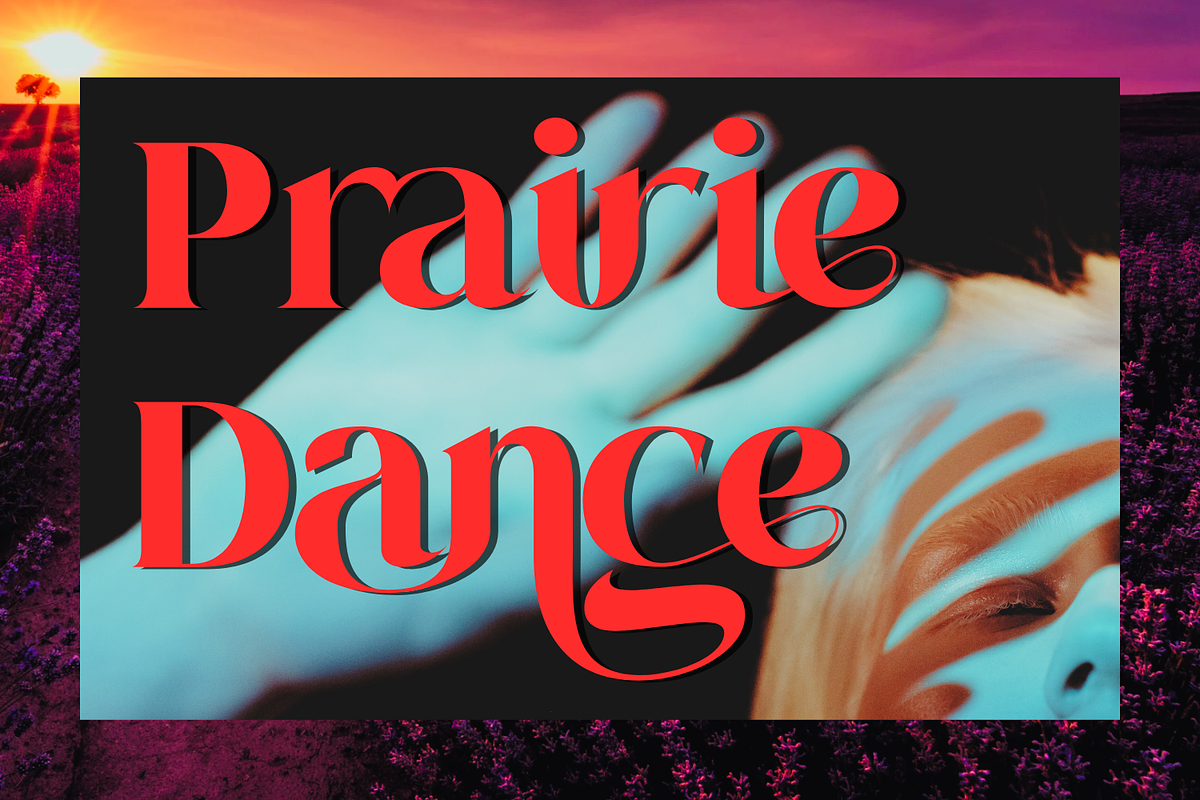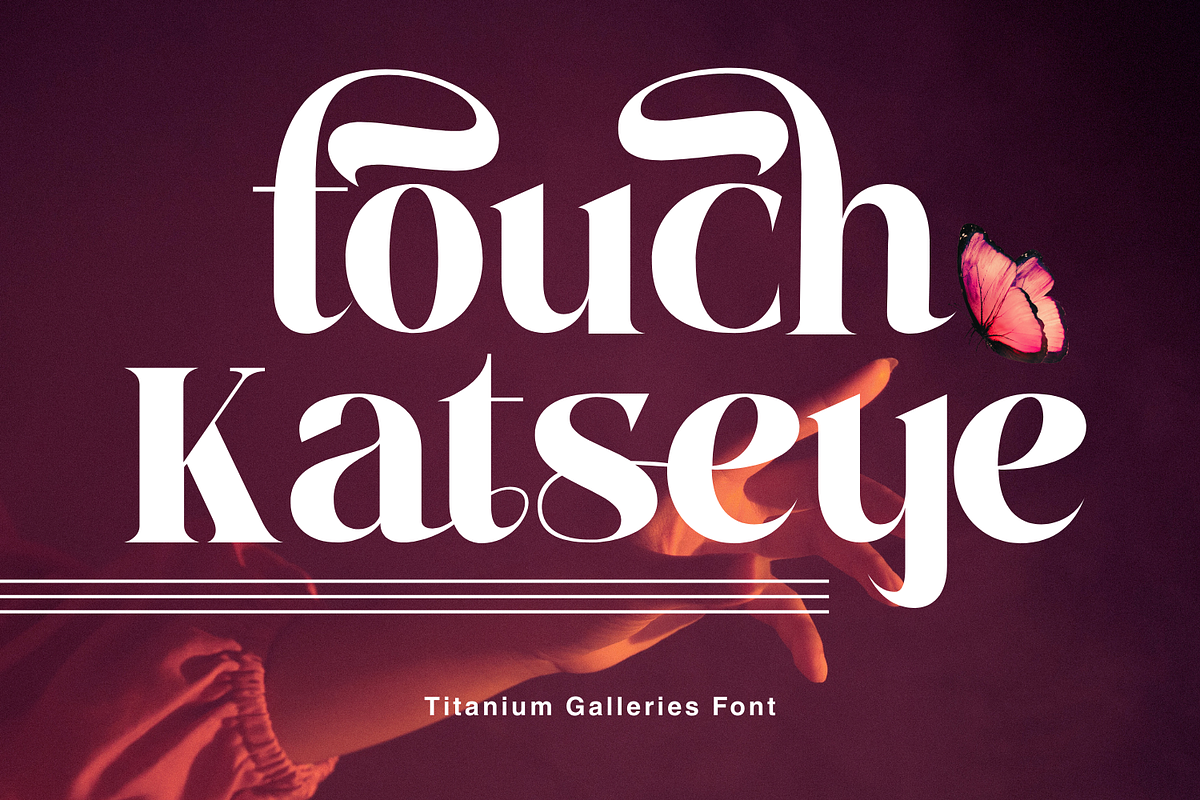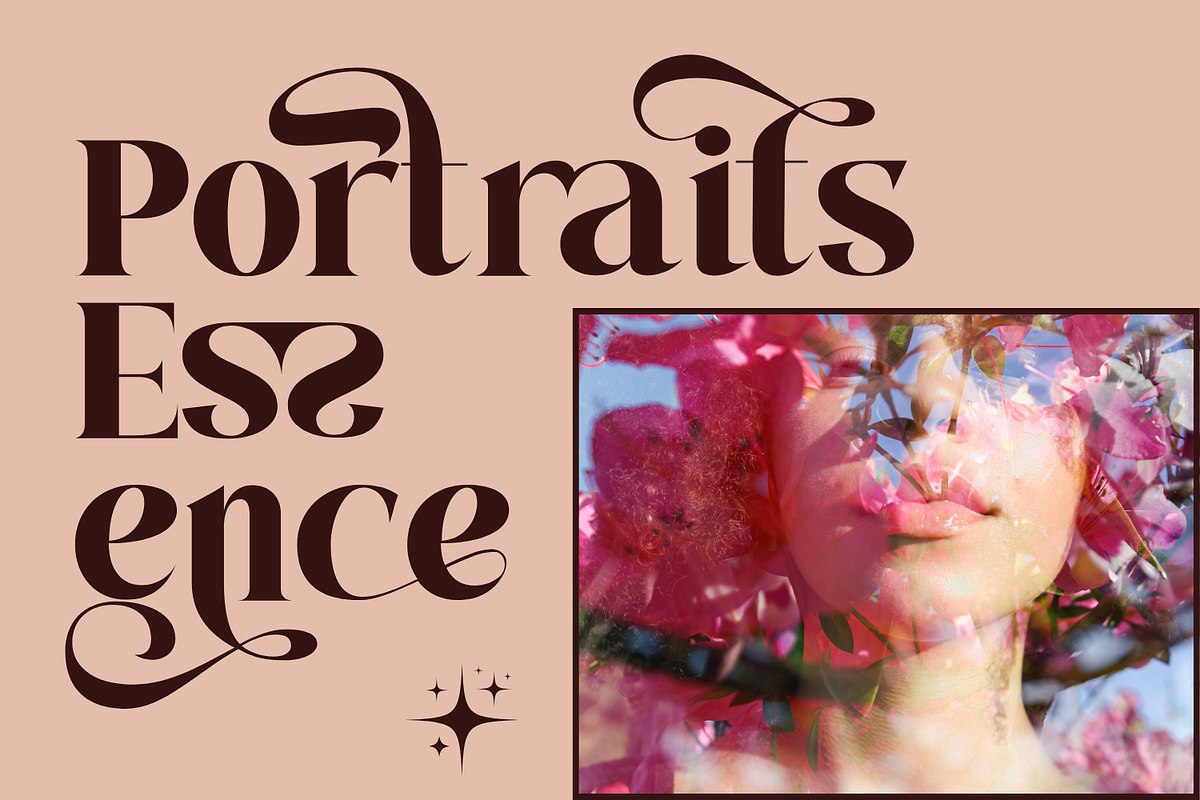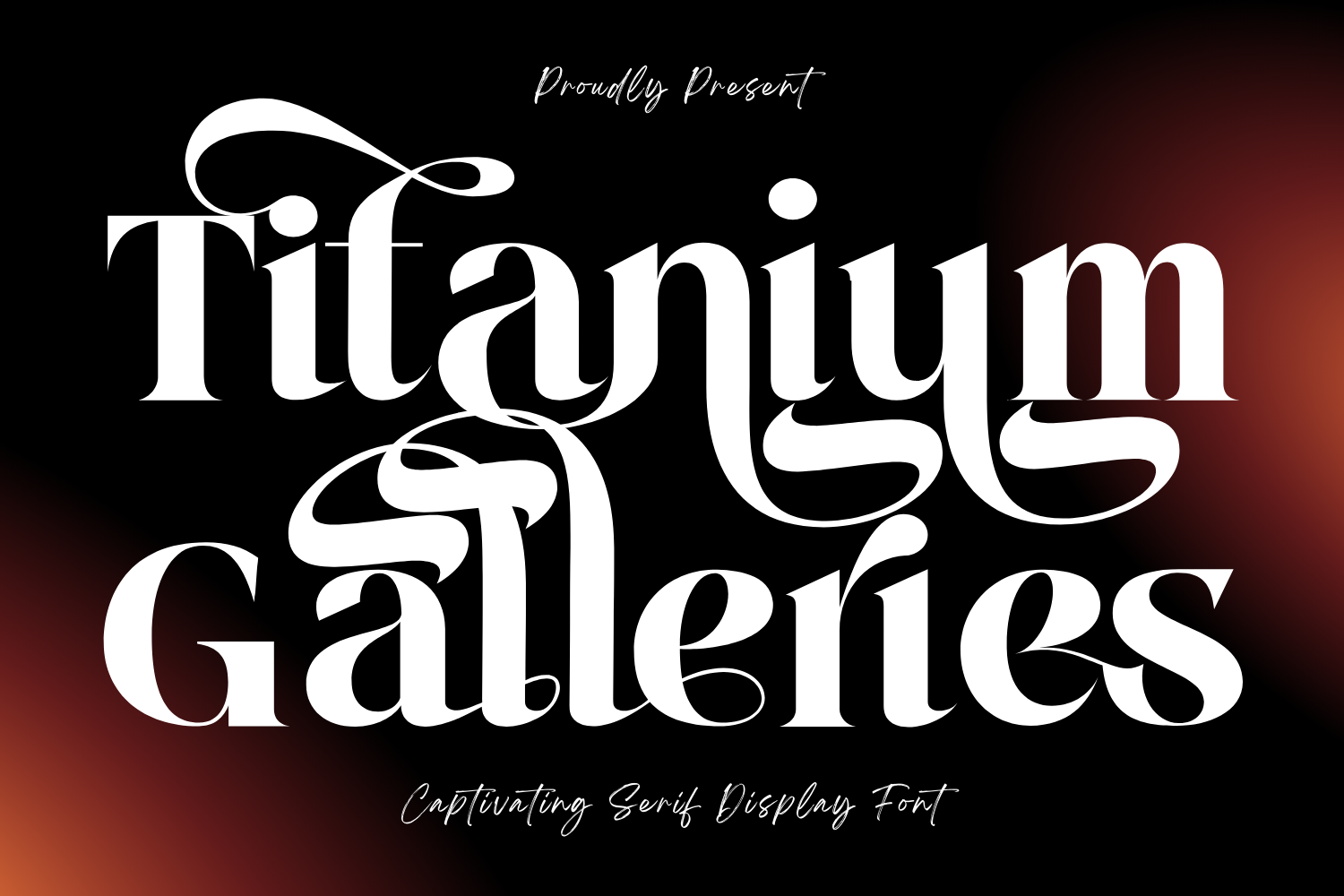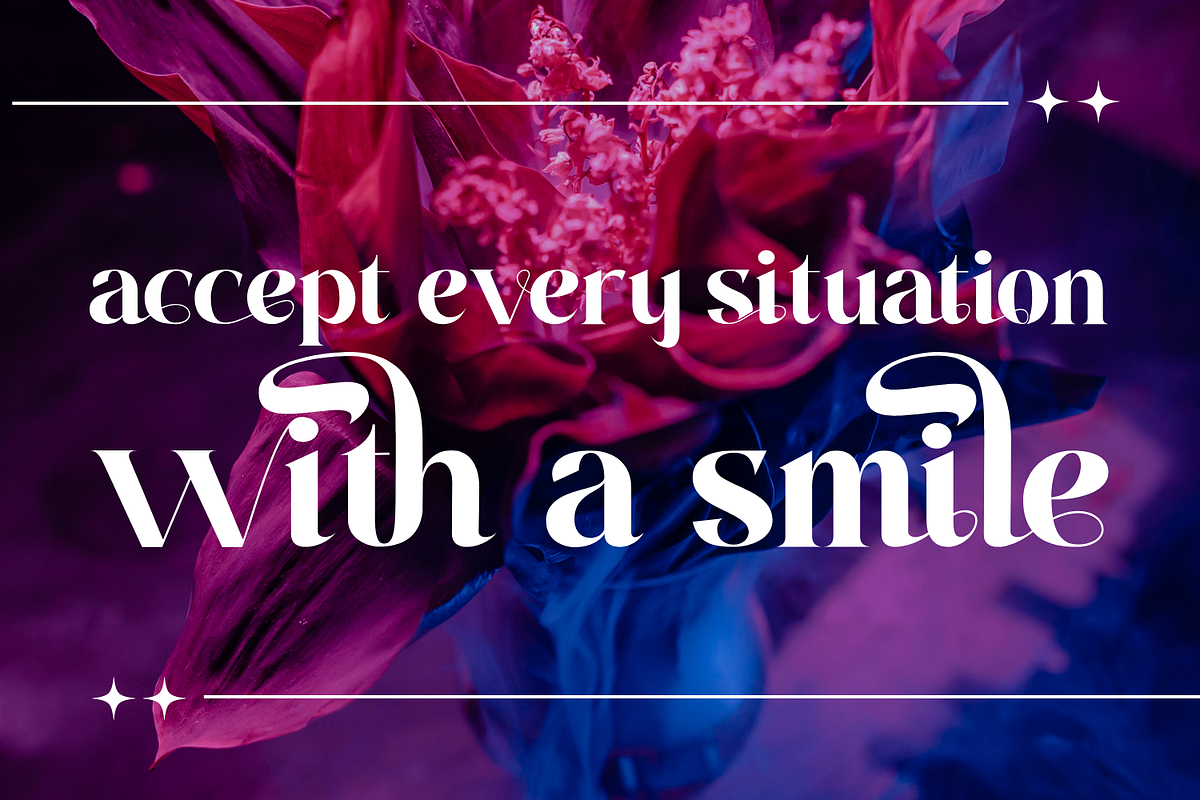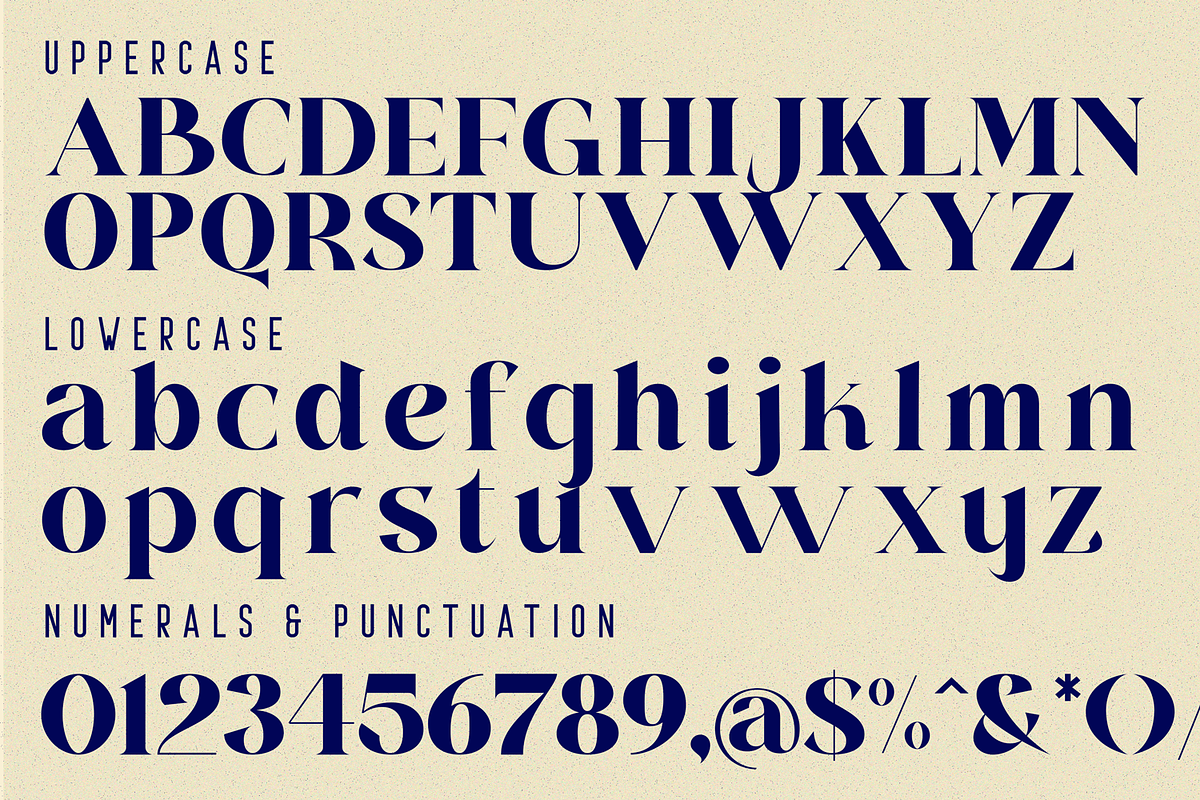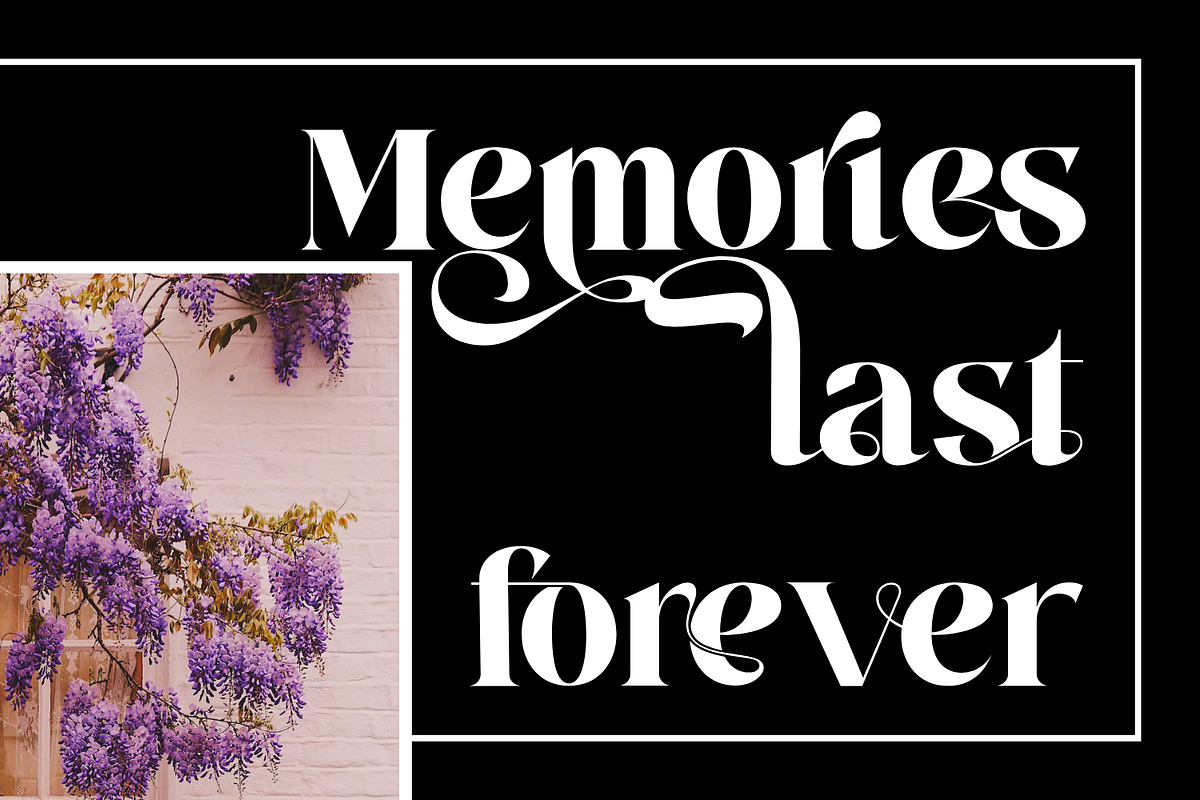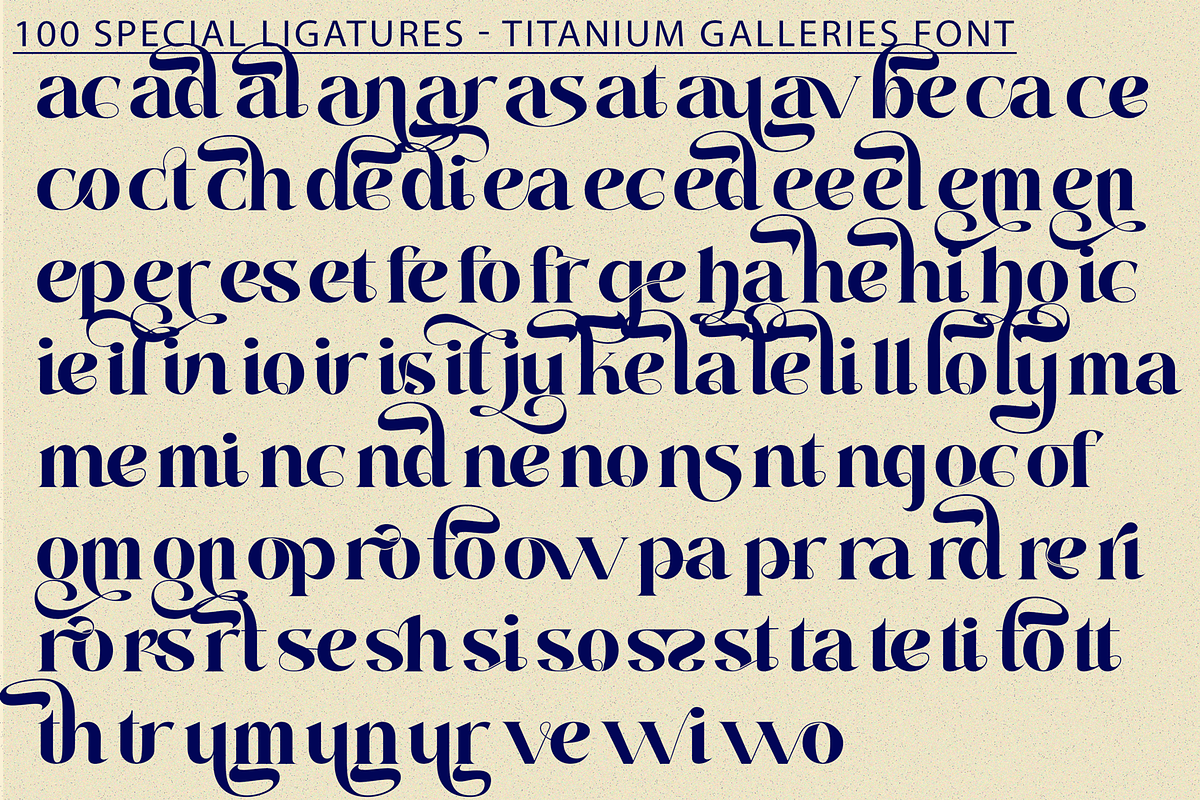
Titanium Galleries Luxury Serif Font
Titanium Galleries Luxury Serif Font – Luxury Modern Serif with Dramatic Swashes, is a luxury serif typeface that blends refined elegance with bold artistic flair. Featuring high-contrast strokes, extended swashes, and graceful curves, this font is designed to command attention in premium branding, editorial design, event invitations, and high-fashion advertising. Its sophisticated style makes every composition feel like a masterpiece. With over 100 expertly crafted ligatures, Titanium Galleries allows seamless letter combinations, ensuring smooth and beautiful typography. Each character is meticulously designed to balance readability with expressive detail, making it perfect for both display headlines and refined text layouts.
🔤 Font Features:
- Uppercase and Lowercase Letters
- 100+ Special Ligatures for Unique Combinations
- Multilingual Support with Accented Characters
- High Contrast Strokes & Elegant Serif Forms
- Dramatic Swashes for a Luxurious Appeal
🔤About 100 ligatures combined with Stylistic Alternates Font:
ac ad al an ar as at au av be ca ce ch co ct de di ea ec ed ee el em en ep er es et fe fo fr ge ha he hi ho ie ic il in io ir is it ju ke la le li ll lo ly ma me mi nc nd ne ng no nt ns oc of om on oo op or ot ou ow pa pr ra rd re ri ro rs rt se sh si so ss st ta te th ti to tr tt um un ur ve wi wo